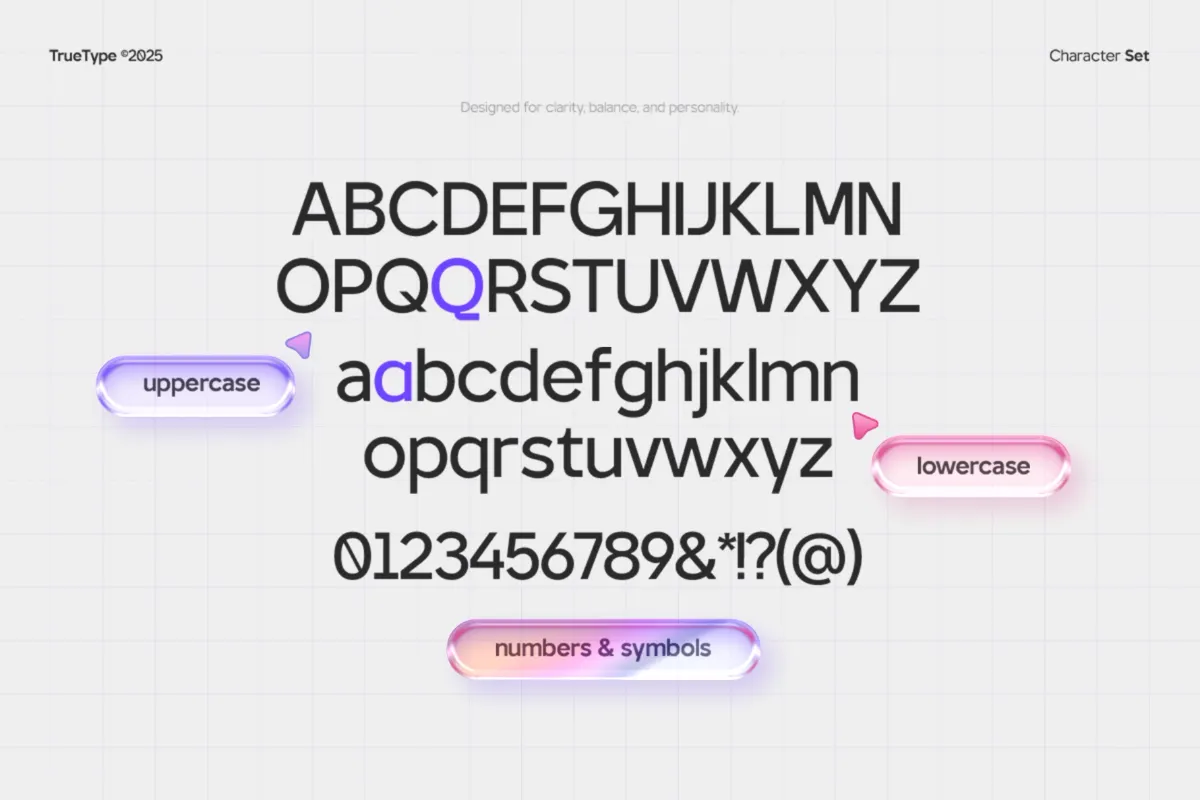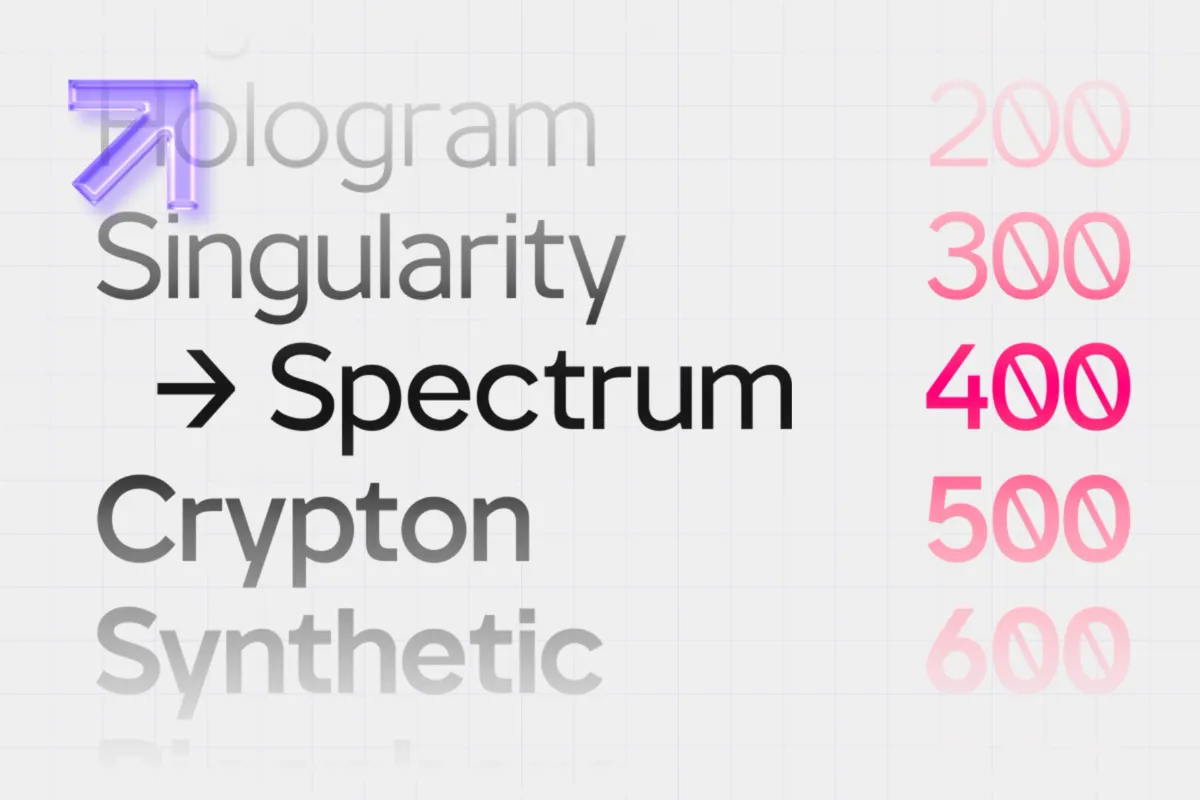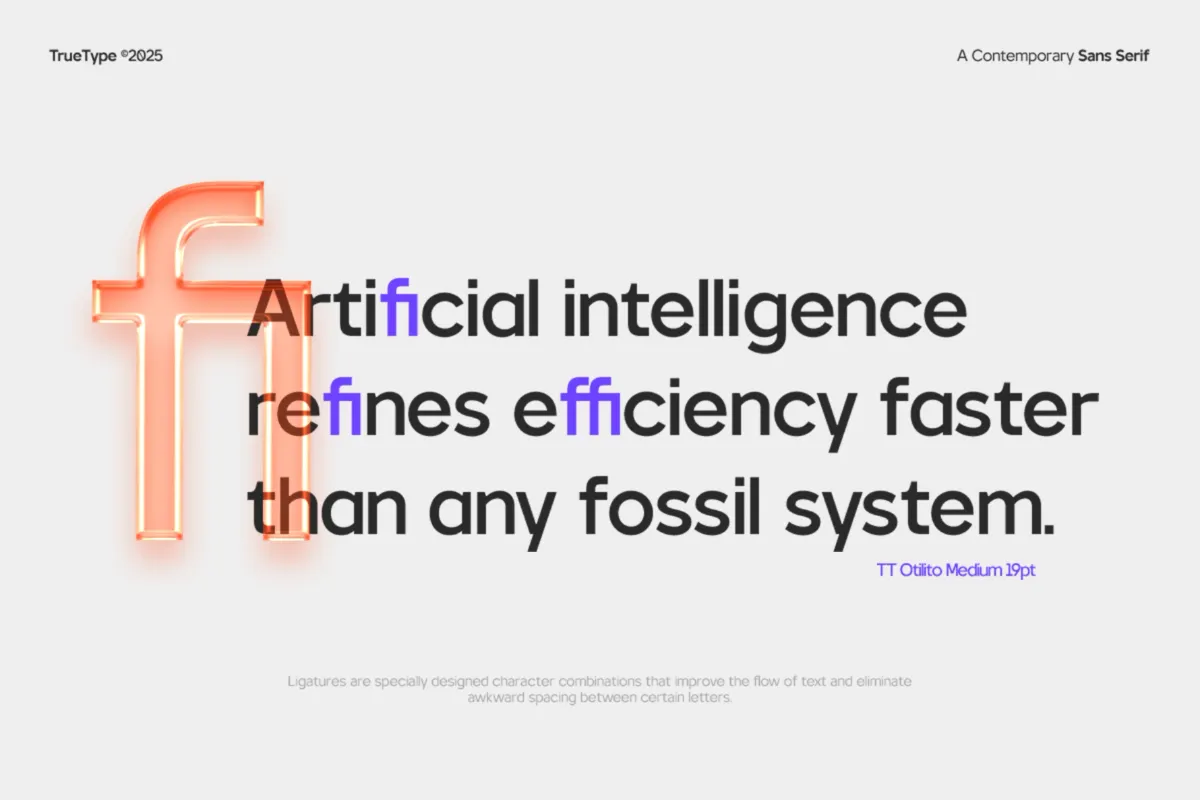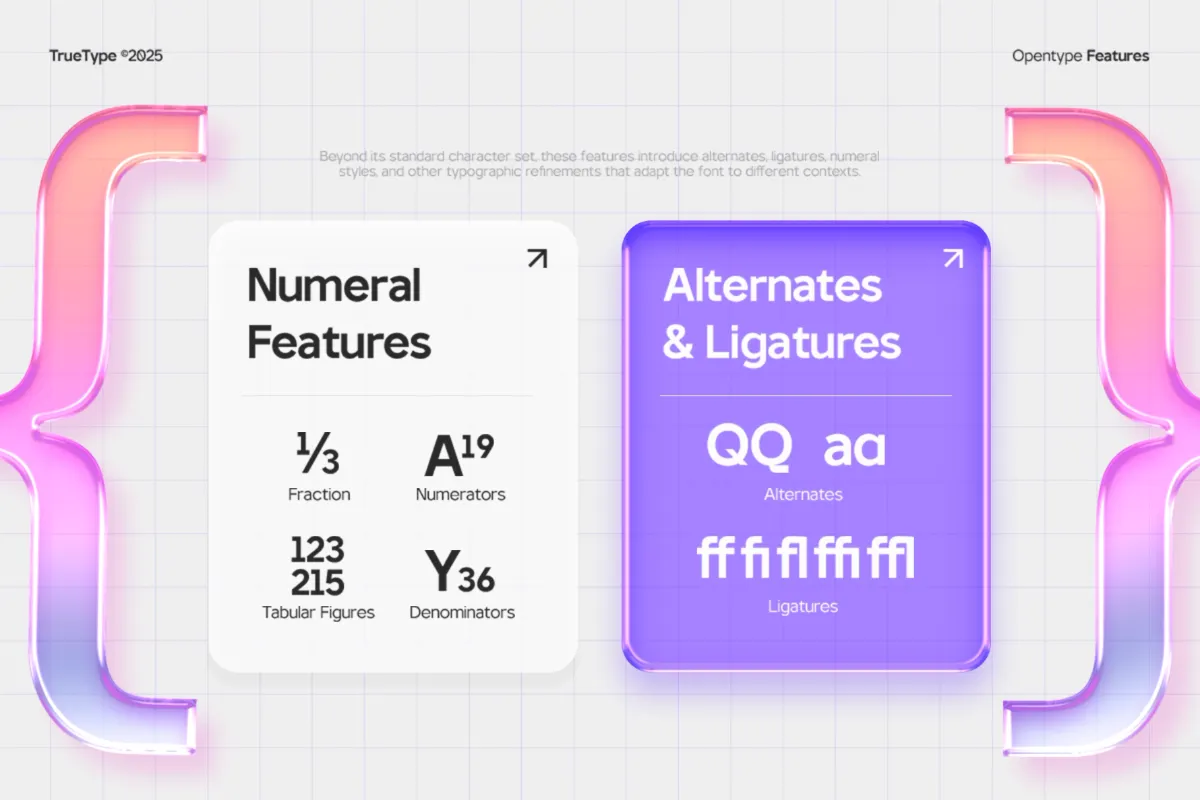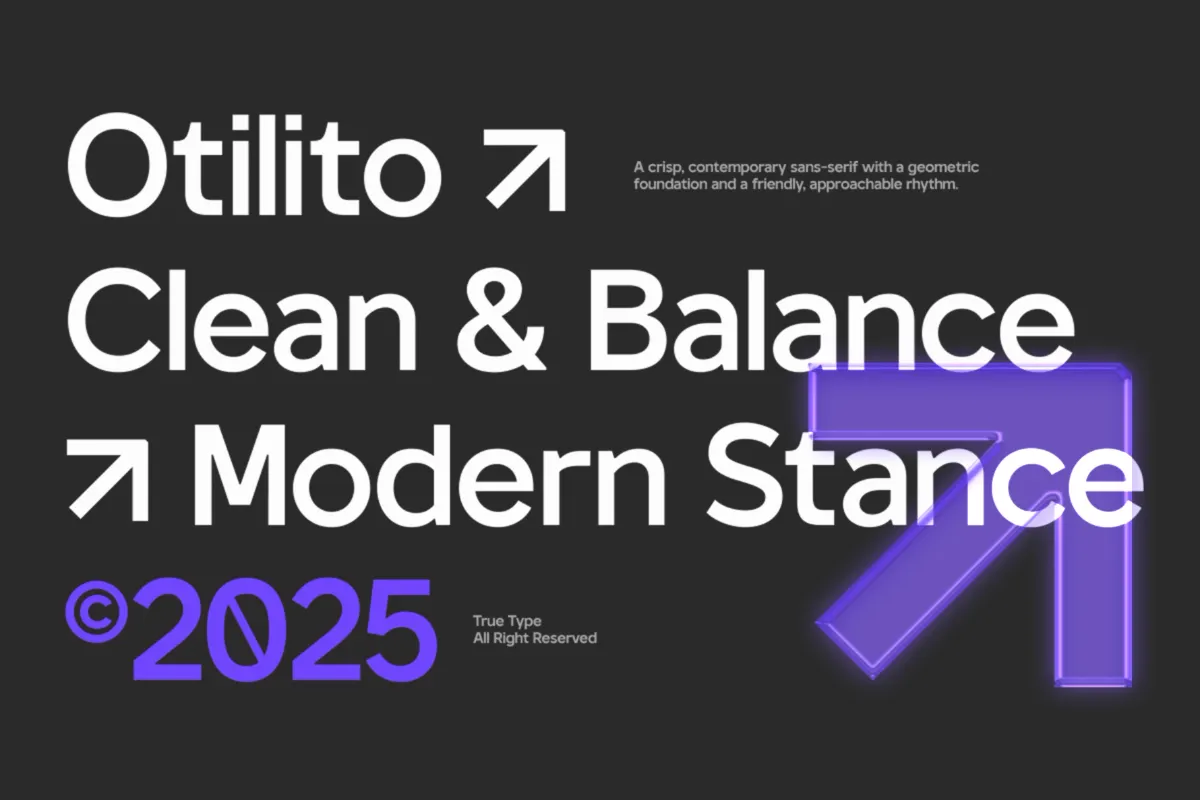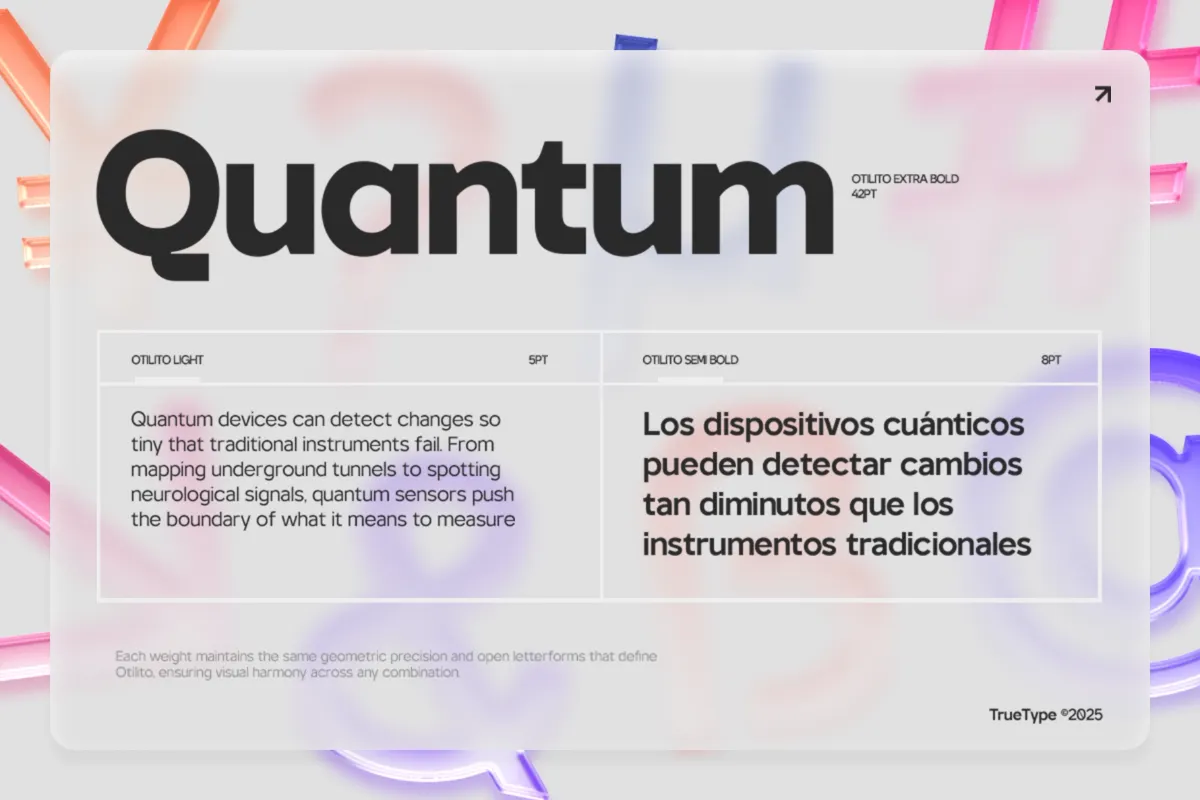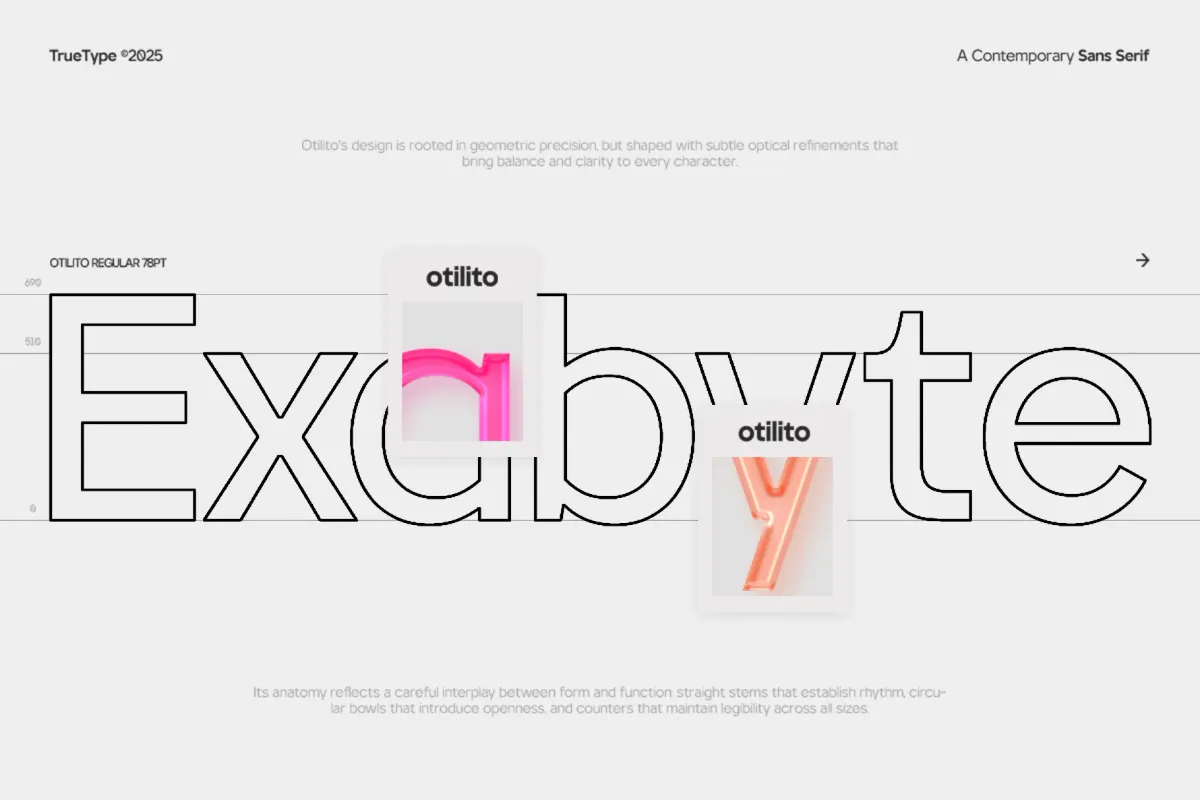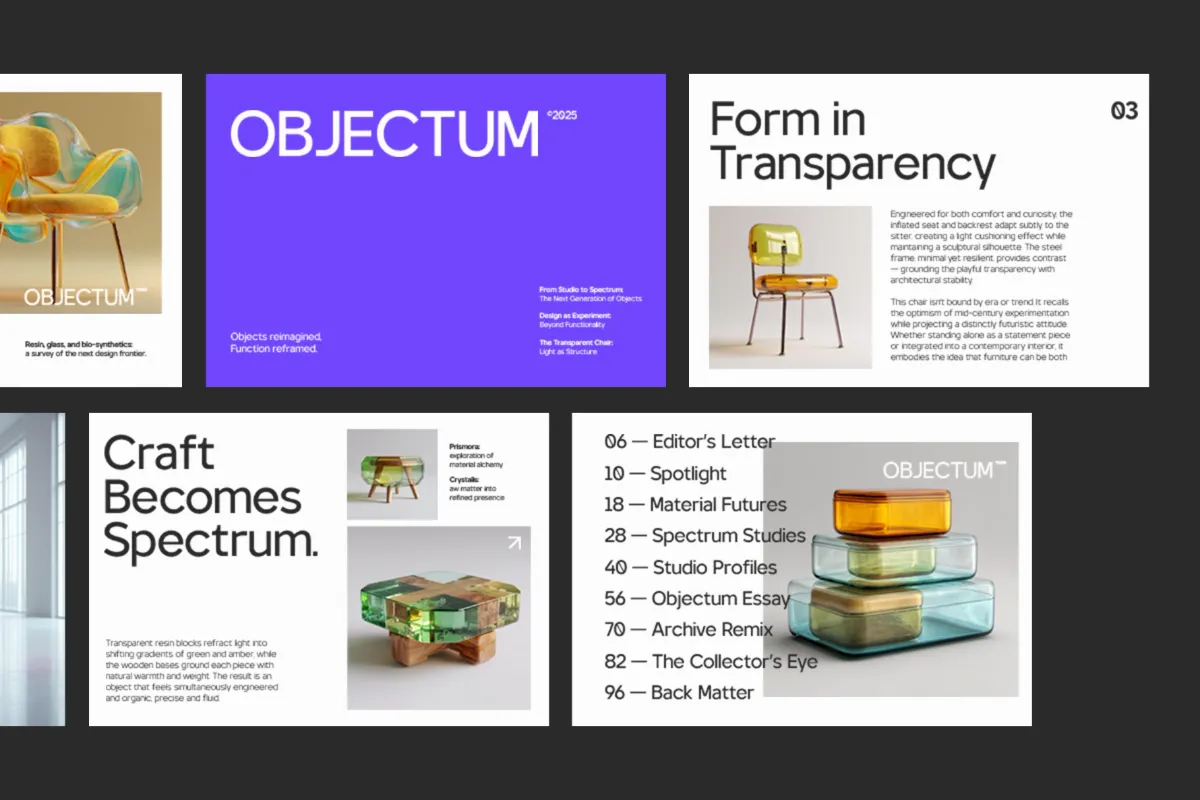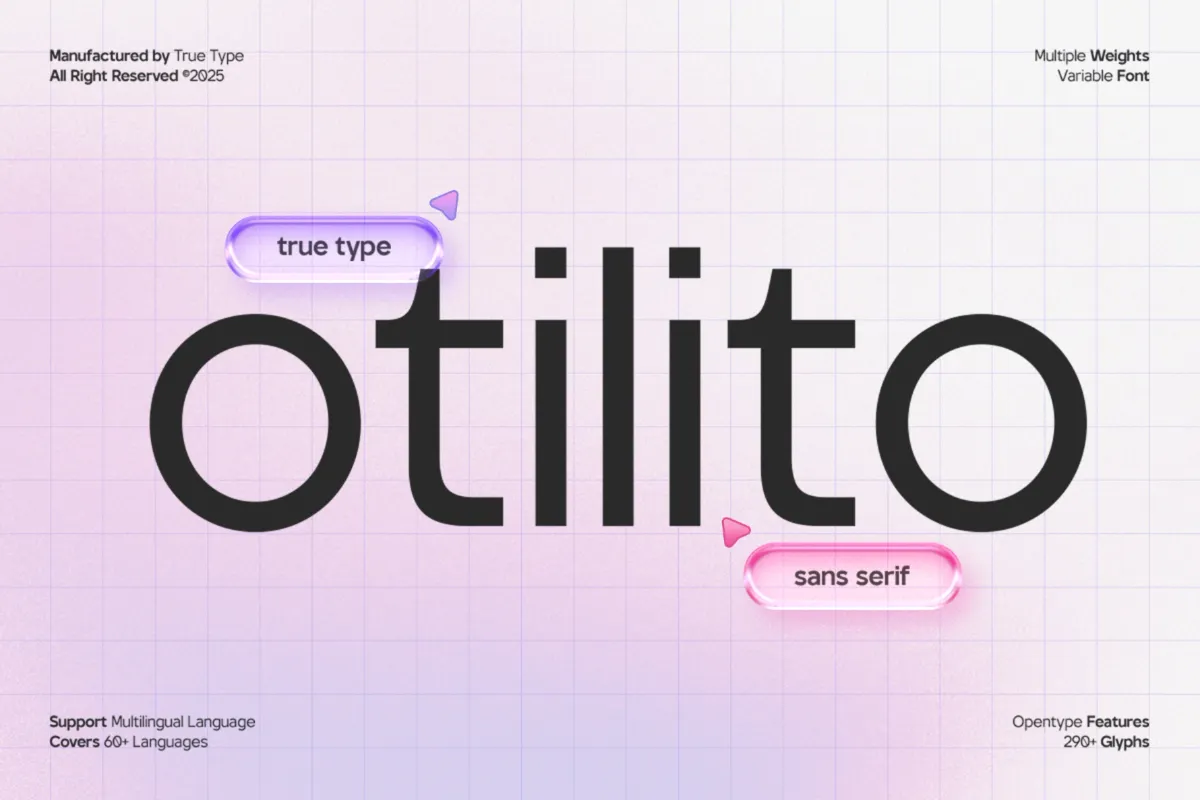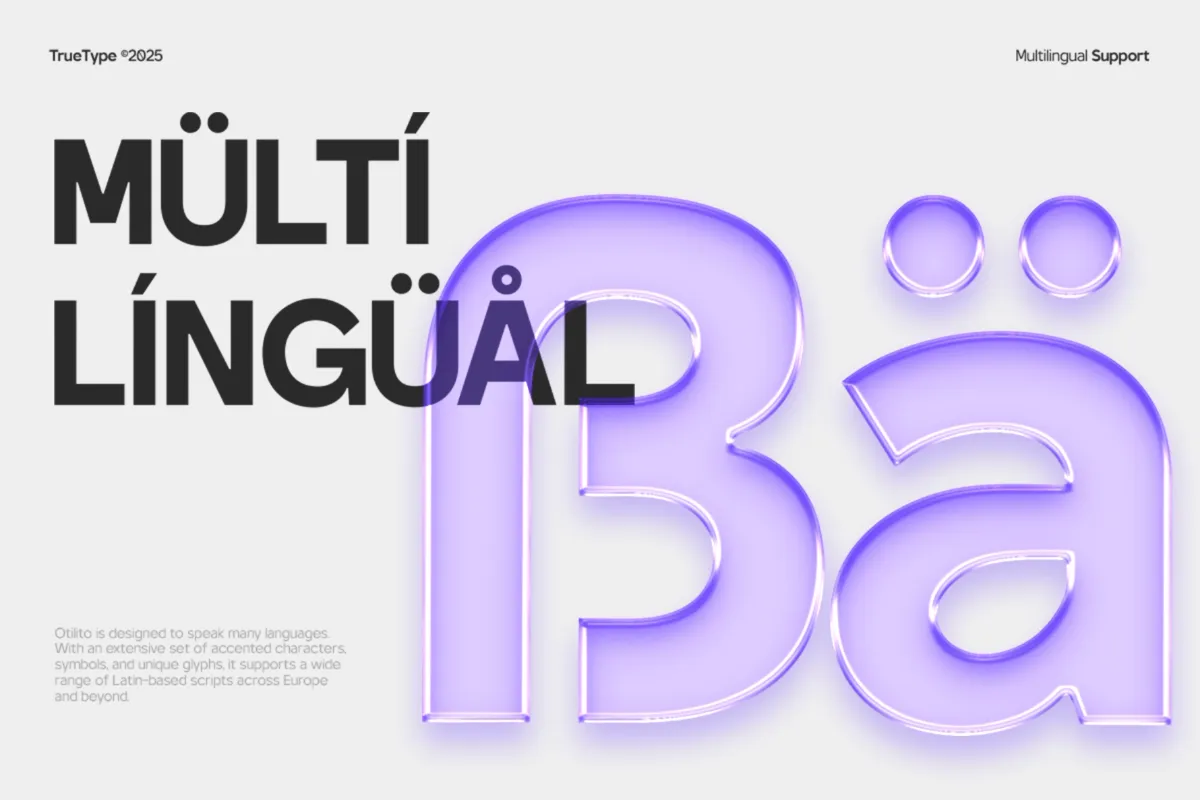
TRT Otilito Sans Font Family
There's a controlled looseness to Otilito — geometric circles and open apertures pulled just slightly off their grid, so this semi-grotesque sans serif reads modern without settling into cold neutrality. Eight weights, from a hairline Thin to a dense Extra Bold, share the same skeleton, carrying a logotype and a magazine headline on the same structural bones, then dropping down comfortably into interface labels, packaging copy, and body text without losing its character.
- 8 weights: Thin, Extra Light, Light, Regular, Medium, Semi Bold, Bold, Extra Bold;
- Extended Latin character set for Western & Nordic European languages;
- OpenType features: standard and discretionary ligatures, stylistic alternates, fraction, ordinal, and superscript figures, proportional and tabular numerals, kerning;